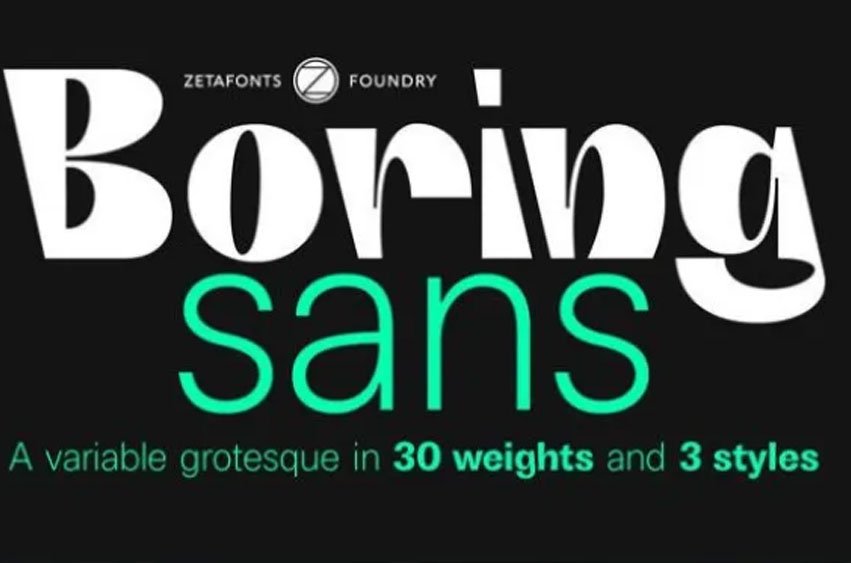
Boring Sans Font designed by Cosimo Lorenzo Pancini, is a typeface family designed along two variable axis: The weight and the weirdness are two of such characteristics.
These two parameters enable a designer to go through the entire spectrum of variations in sans serif design, starting from a neutral set of proportions and ending with a strongly contrasted and dynamic treatment that is ready to shock on social media.